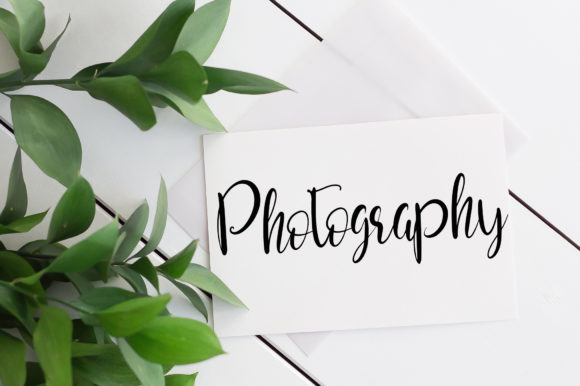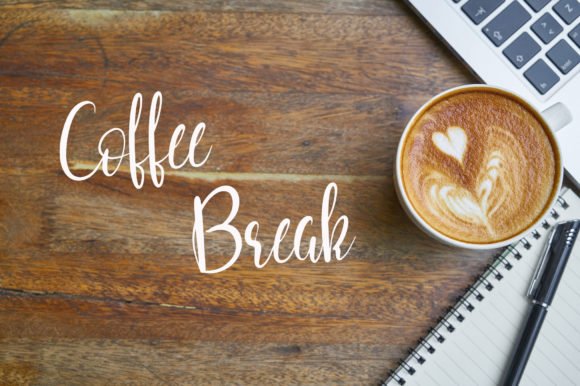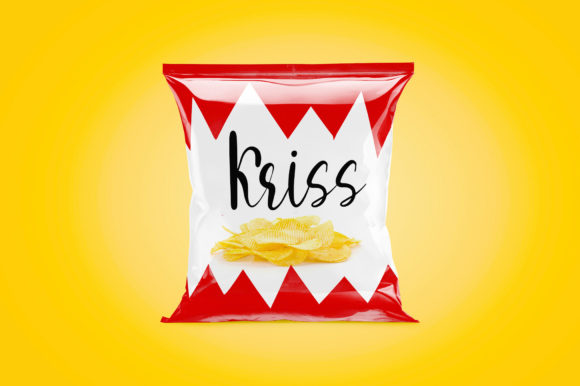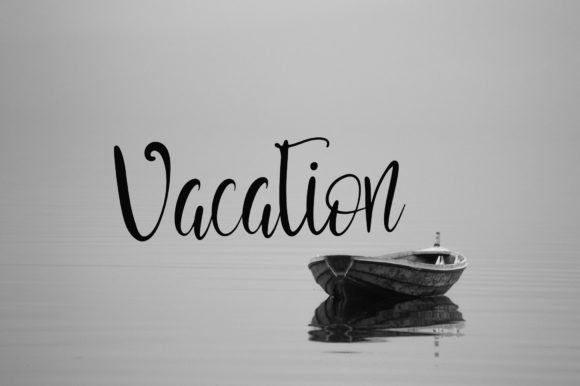
About Lasetta Font
Lasetta is a stunning and modern script font that effortlessly captures attention with its elegant and unique design. Its exquisite details and thoughtful craftsmanship make it a perfect choice for a wide range of design projects.
The font’s varying baseline adds a touch of dynamism and movement to your text, creating a sense of fluidity and visual interest. The smooth lines of Lasetta contribute to its polished and sophisticated appearance, making it a versatile option for both formal and informal designs.
One of the standout features of Lasetta is its collection of gorgeous glyphs and alternates. These intricate and beautifully crafted characters allow you to add a personal and artistic touch to your typography. Whether you’re designing logos, branding materials, or promotional materials, Lasetta’s alternates provide endless possibilities for customization and creativity.
The modern feel of Lasetta makes it an excellent choice for contemporary design projects. Its clean and stylish aesthetic can elevate a variety of applications, from packaging and product labels to website headers and social media graphics.
With its combination of elegance, modernity, and versatility, Lasetta is a font that truly stands out. Its ability to enhance the visual appeal of your designs while conveying a sense of sophistication makes it a valuable asset in your font library. Whether you’re creating logos, branding materials, advertisements, or any other design that requires a touch of beauty and modernity, Lasetta is sure to leave a lasting impression.